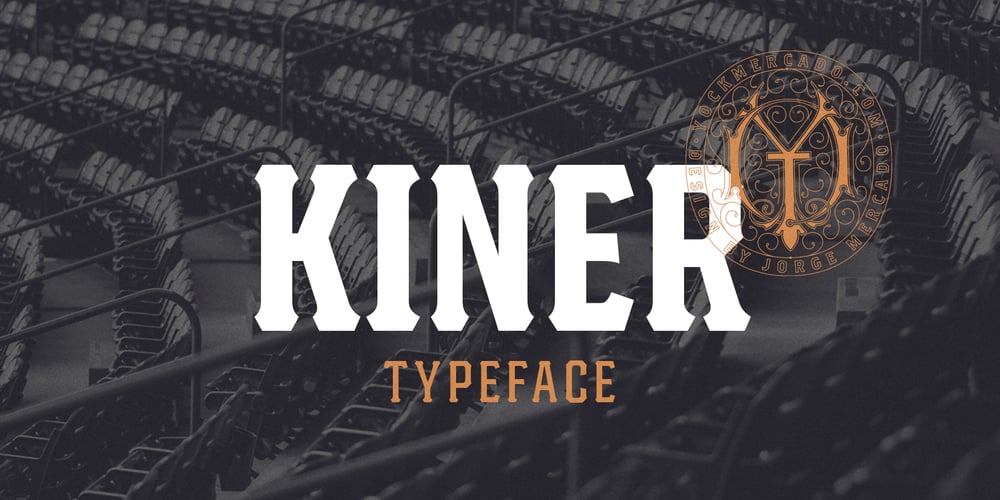
Kiner Font Family was designed by Jorge Mercado and published by Yock Mercado. Kiner contains 6 styles and family package options. Kiner is a typeface designed by Jorge Mercado, inspired in old western letters used in many industries. Kiner support most latin languages, and the set includes uppercase and lowercase.